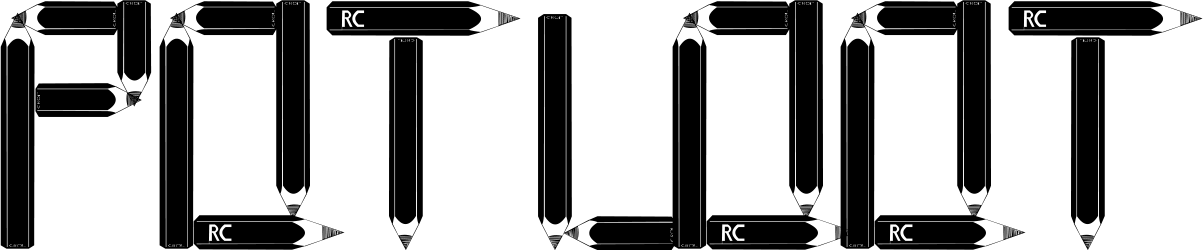
Potloot Font
This is an amazing font that is very interesting, plus it will give your typography a decorative, cartoon, fun, and playful feel. Potloot is a , and the characters are designed from fantastic pencils!
You will enjoy using this font and you will have a very unique design, that will be also suitable for all school children! Potloot offers bold capitalized alphabets, numbers, and symbols that are attractive. Places you might want to use Potloot are posters, artwork, school projects, and books.